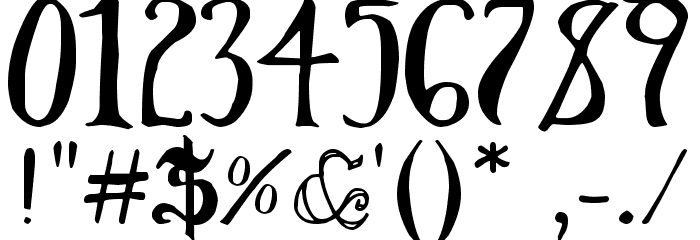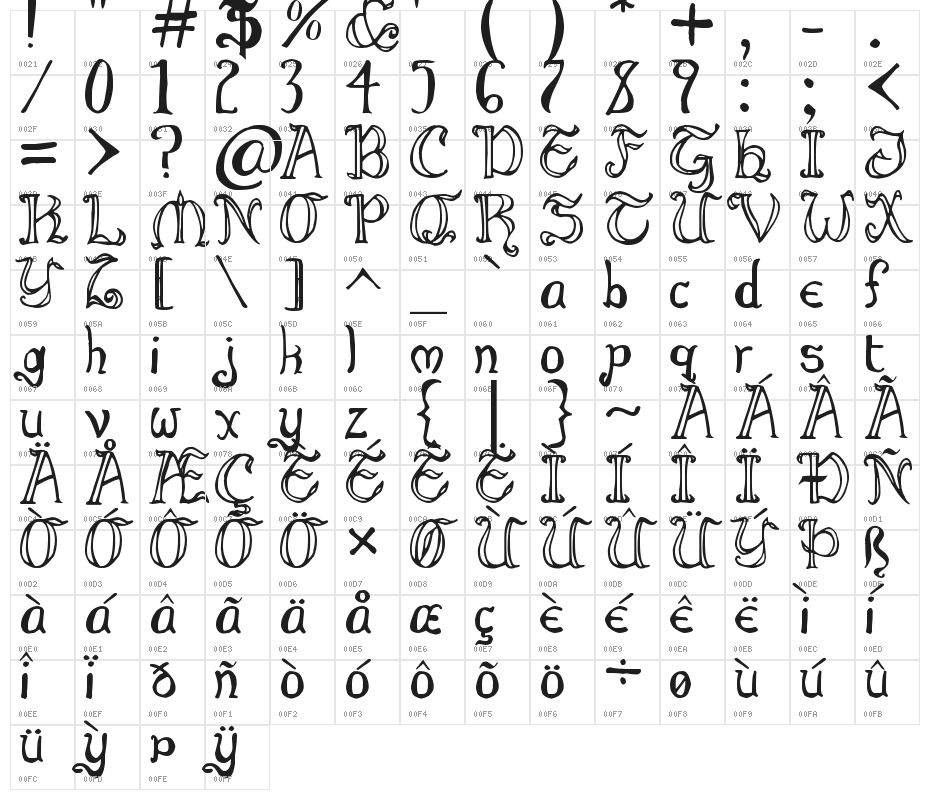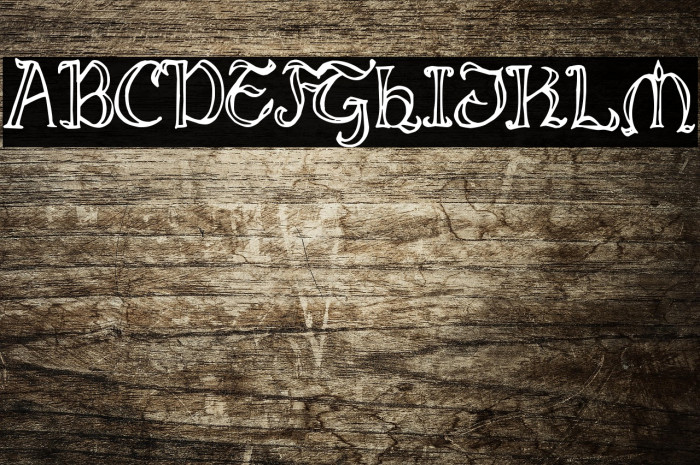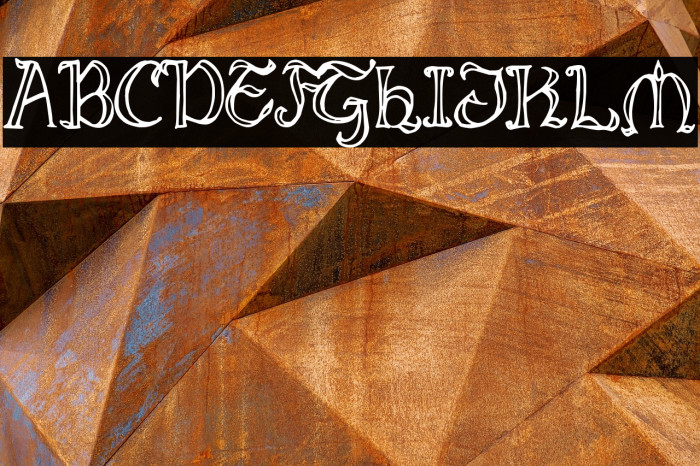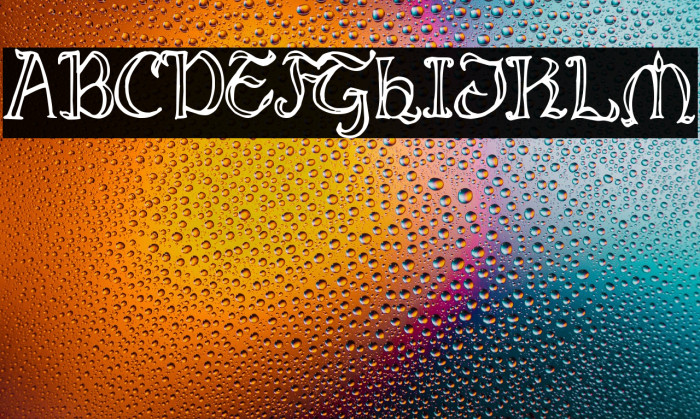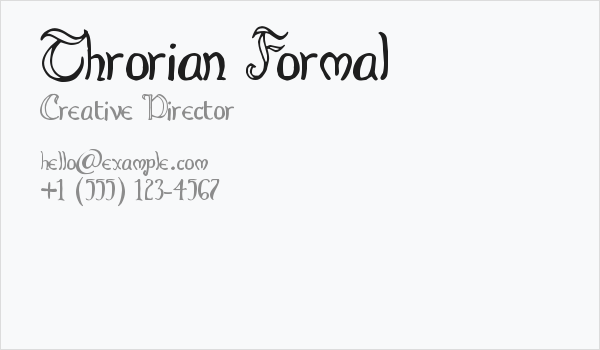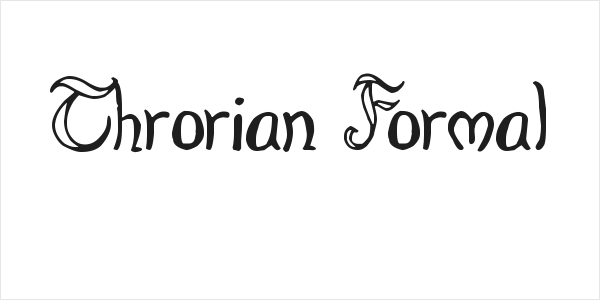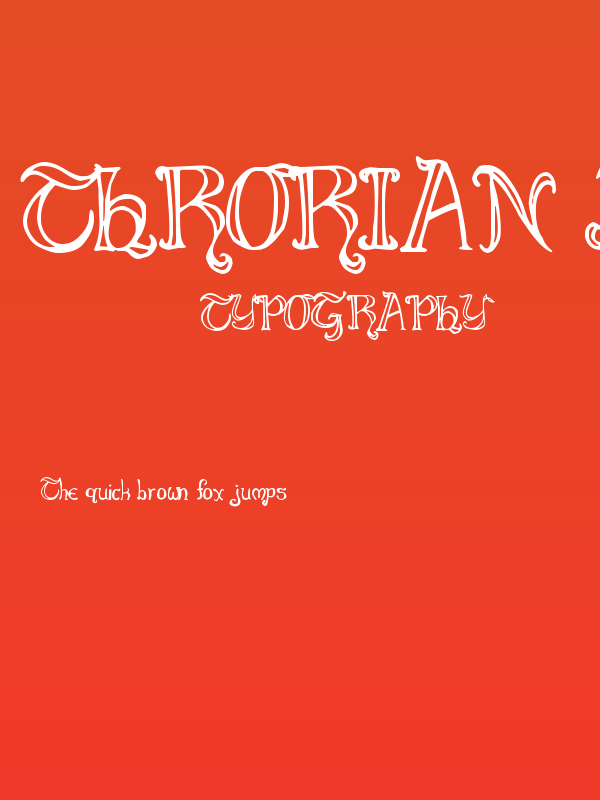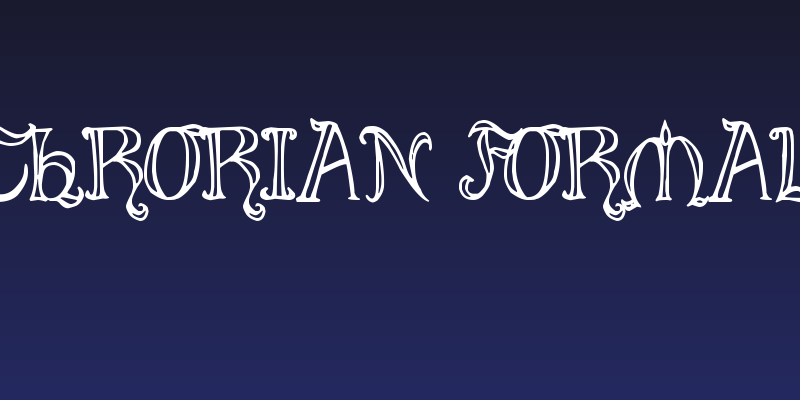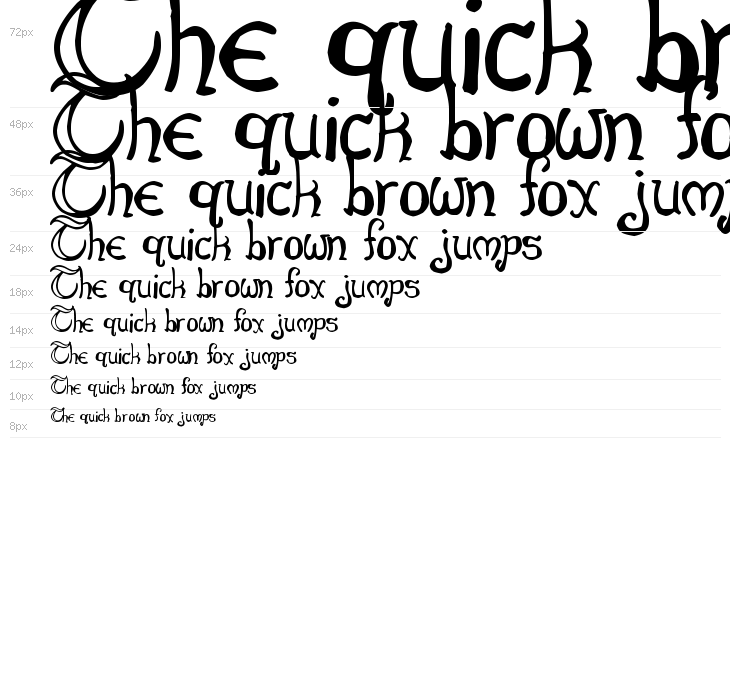
Throrian Formal Font
Throrian Formal Description
This font features an ornate and decorative style with intricate details that give it a unique and artistic flair. The uppercase letters are characterized by elaborate swirls and embellishments, creating a sense of elegance and sophistication. The lowercase letters maintain a more fluid and organic form, complementing the uppercase with a slightly whimsical touch. The numerals are bold and distinct, ensuring readability while maintaining the overall decorative theme. Special characters are equally stylized, adding to the font's cohesive aesthetic. This font is ideal for projects that require a touch of elegance and creativity, such as invitations, branding, and artistic designs.
| Use Case | Headlines, Logos, Artistic designs |
| Proposed Projects | Ideal for invitations, branding, artistic designs, and decorative projects. |